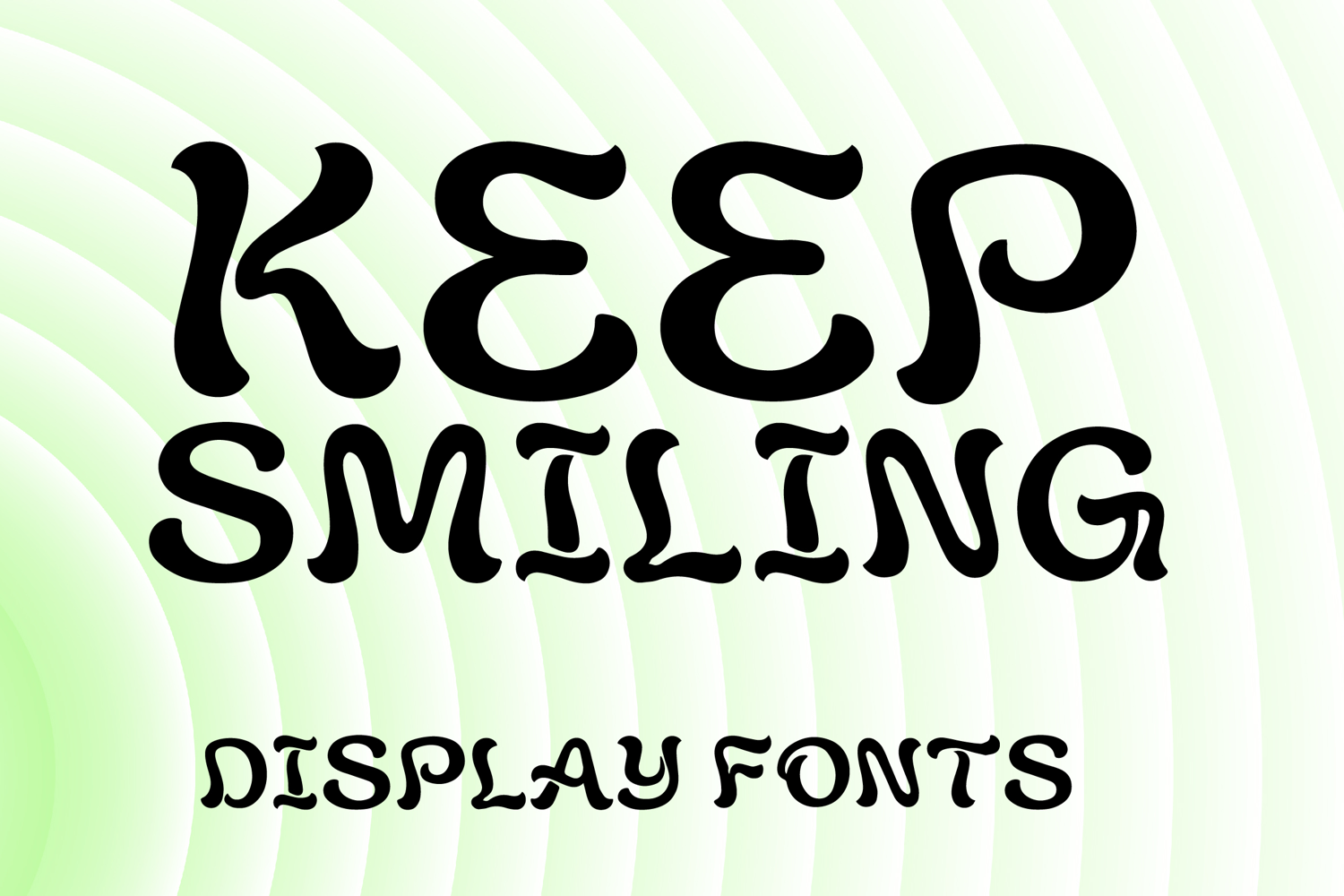
KEEP SMILING
KEEP SMILING is a whimsical decorative display font with a cheerful handcrafted style and soft retro charm. Its uppercase letterforms feature smooth rounded strokes, playful curved terminals, and friendly organic shapes that create a warm, lively, and eye-catching look. Designed with uppercase letters A–Z and numbers 0–9, KEEP SMILING is perfect for branding, posters, packaging, invitations, quotes, social media graphics, and creative projects that need a joyful and memorable statement.